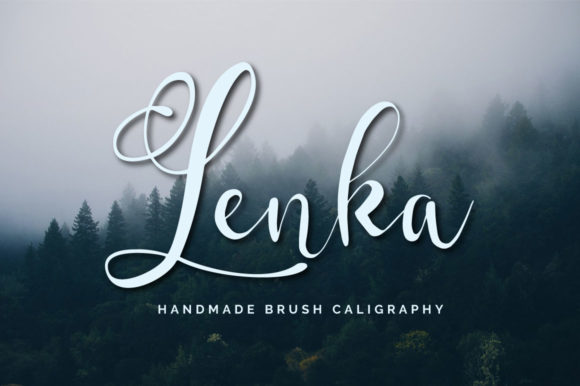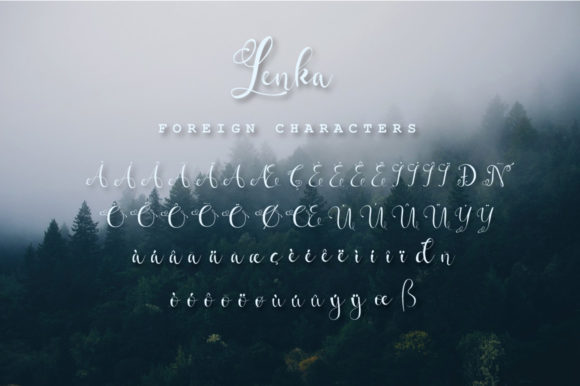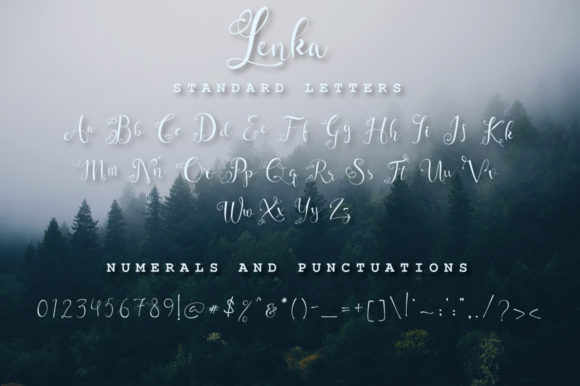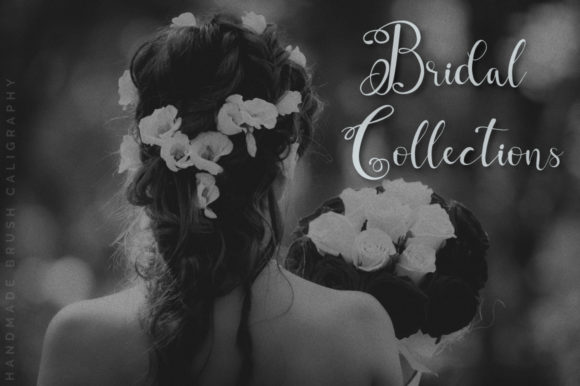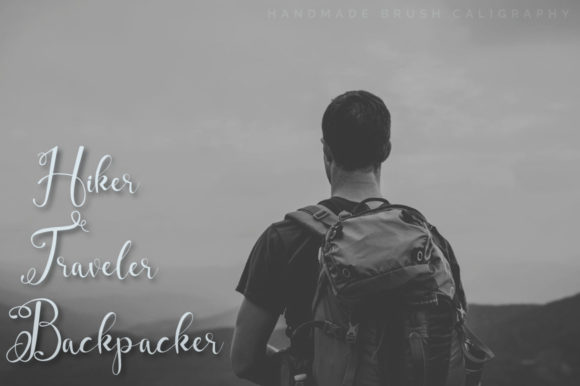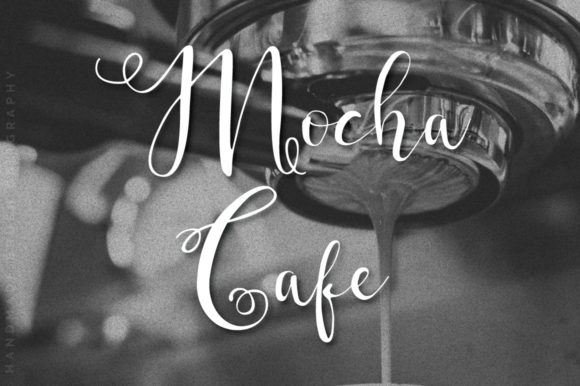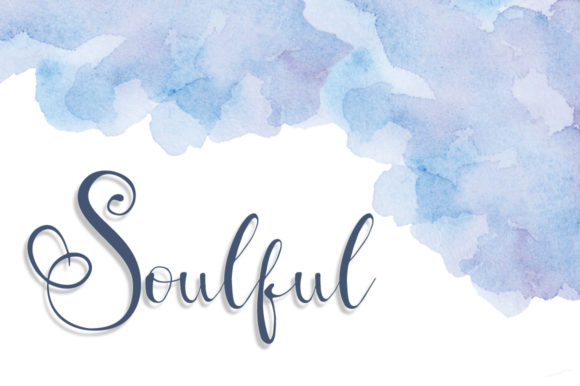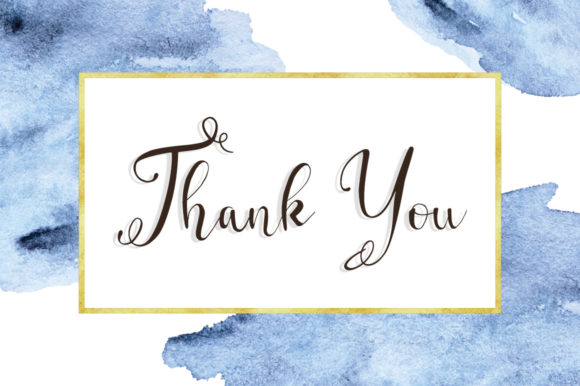
HomeScript FontsLenka Font Script Fonts Lenka Font FacebookXPinterestWhatsApp Lenka Font Poster 2 Lenka Font Poster 3 Lenka Font Poster 4 Lenka Font Poster 5 Lenka Font Poster 6 Lenka Font Poster 7 Lenka Font Poster 8 Lenka Font Poster 9 About Lenka Font The Lenka is a handwritten font. It was made carefully to add some smoothness to your designs. DOWNLOAD NOW People also explored Hellowns Font Dameroth Font Christopher Font Font Bestie Font The Matesih Font Kerape Font Whitney Font Really Font Summer Clam Font 397 0 TagsLenka Font Previous articleBeng Beng FontNext articleOureet Font LEAVE A REPLY Cancel reply Comment: Please enter your comment! Name:* Please enter your name here Email:* You have entered an incorrect email address! Please enter your email address here Website: Save my name, email, and website in this browser for the next time I comment. Personal Use Free Degrassi Personal Use Free Read more about this font Fake Receipt Personal Use Free Read more about this font Squariess Personal Use Free Read more about this font Rothwell Personal Use Free Read more about this font BLOG Free Fonts Risk: Why Free Fonts Can Be Dangerous for Designers Free Fonts Risk: Why Free Fonts Can Be Dangerous for Designers Using free fonts is a common practice in web and graphic design. However, the... 5 Fonts That Will Dominate Design Trends in 2026 Modern Sans-Serif Fonts That Brands Love in 2025 To increase your work productivity, choose the most readable fonts.